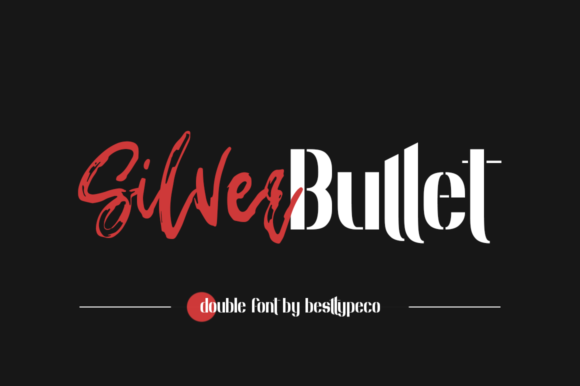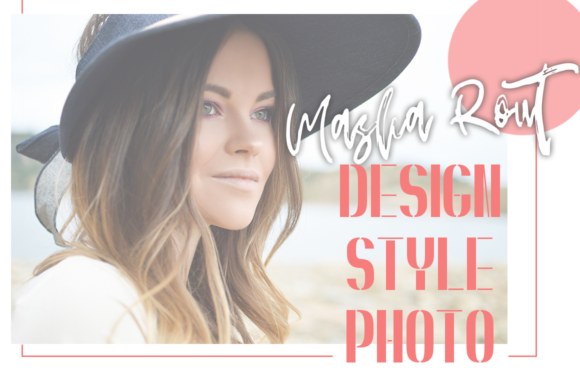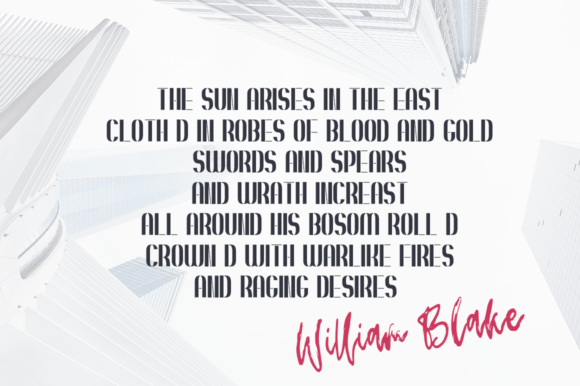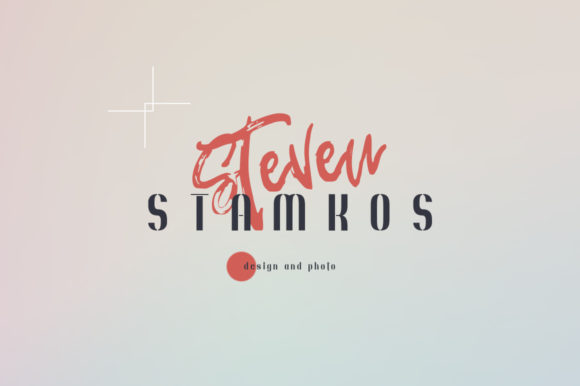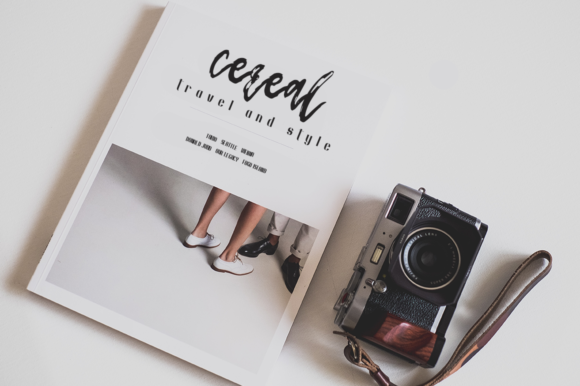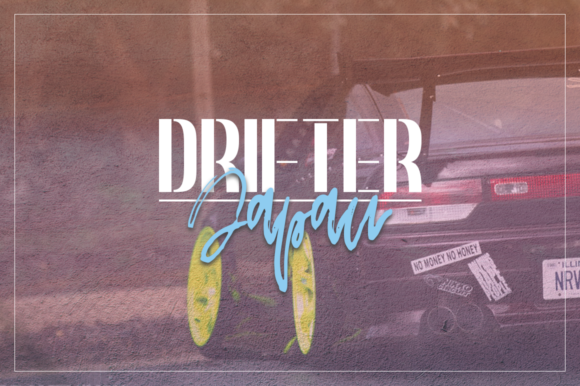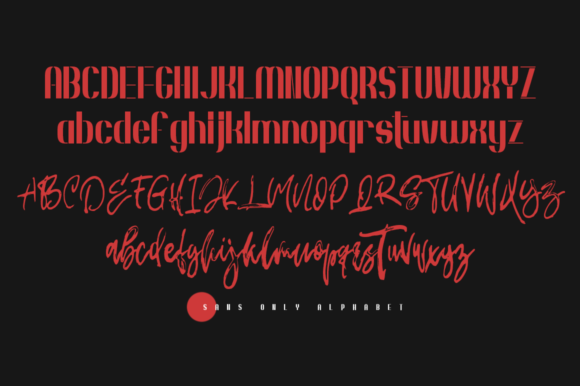
Silver Bullet
About Silver Bullet Font
Silver Bullet duo font is a great handwritten font. It features a strong sans serif style with cute handwritten characters. You can use this versatile font on greeting cards or logos- the only limit is your imagination! Get this amazing freebie and use it to create outstanding designs with it!